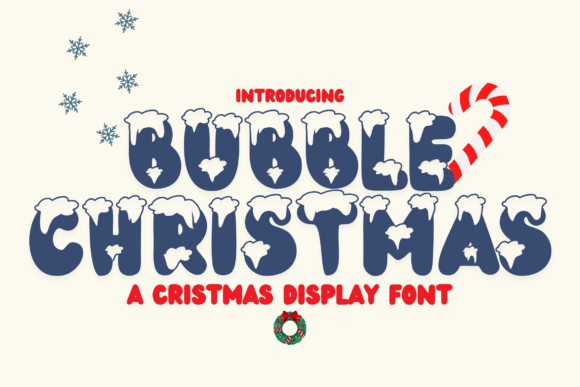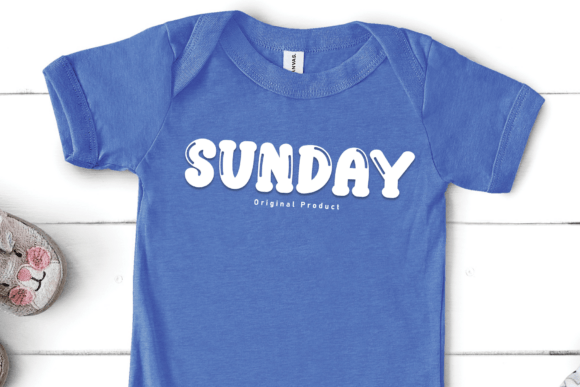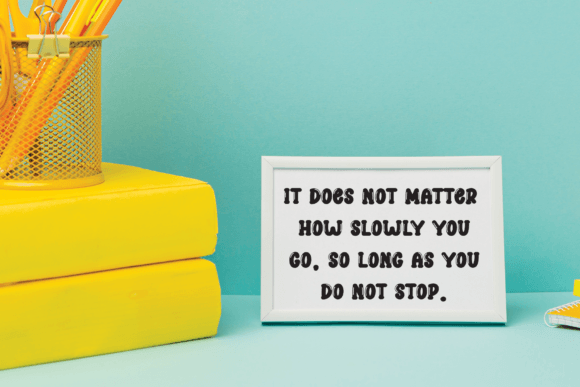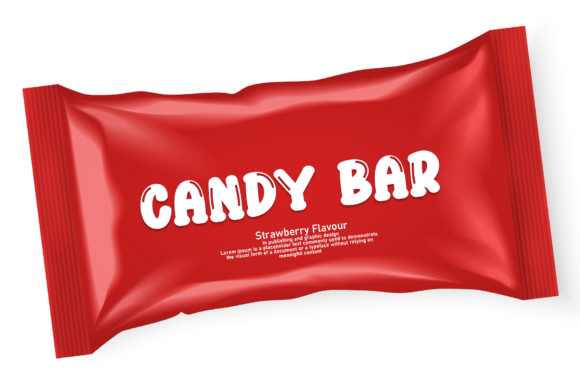
About the Bubble Christmas Font
Experience the unique personality of Bubble Christmas Font, a font designed for impact. Bubble Christmas
is a fun and playful font that features rounded, bubbly letters. Perfect for festive occasions, it adds a cheerful touch to holiday greetings, cards, and decorations. Its soft shapes and friendly style make it easy to read and full of holiday spirit!
This font’s playful energy makes it ideal for headlines, short festive messages, and children’s projects. It works exceptionally well in packaging design for holiday-themed products or branding for businesses with a lighthearted approach. Avoid using it for body text or lengthy paragraphs; its rounded forms can hinder readability in extended use.
Bubble Christmas pairs well with clean sans-serif fonts like Open Sans for a balanced contrast, or a more elegant serif like Playfair Display for a touch of sophistication. For a more whimsical feel, consider pairing it with a handwritten script font, but ensure legibility remains a priority.
Its core personality is undeniably cheerful and friendly, making it a great choice for brands targeting a younger demographic or aiming for a lighthearted, festive aesthetic.
Bubble Christmas Font Usage Examples
Bubble Christmas Font Example